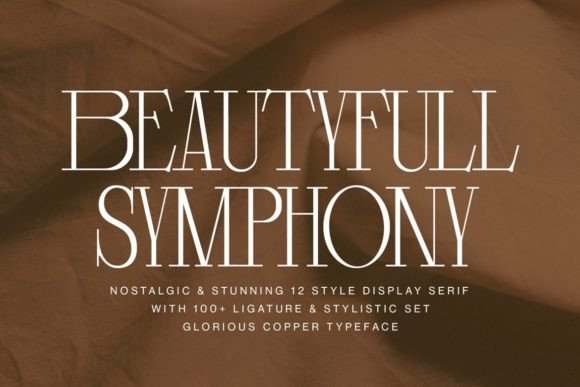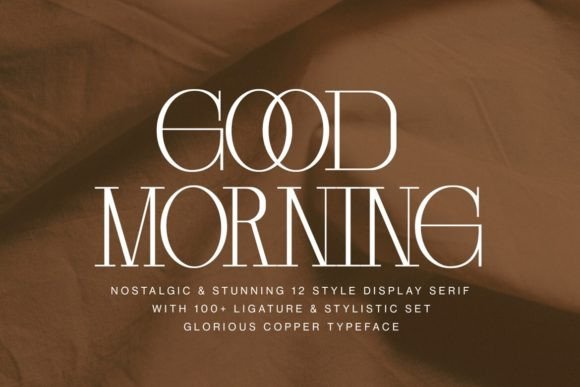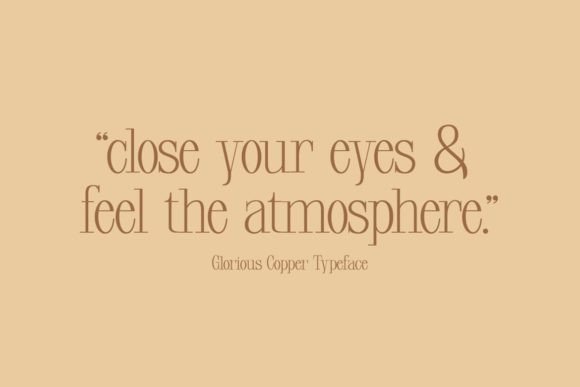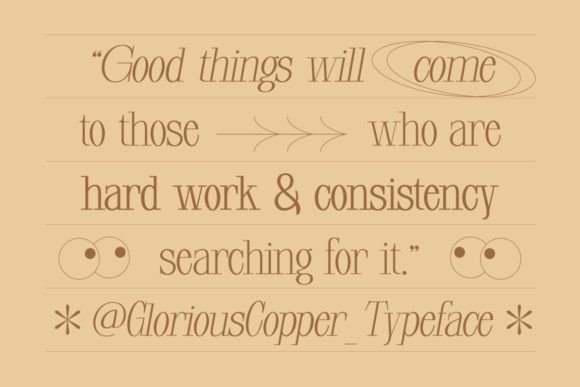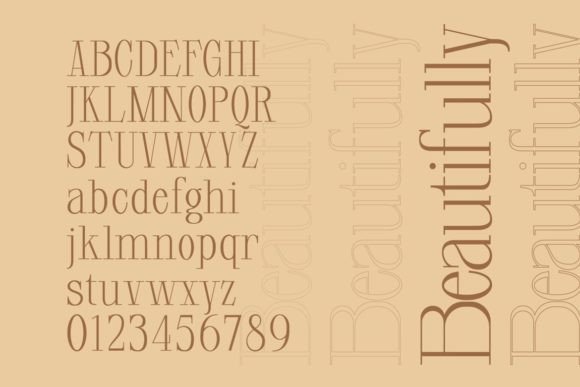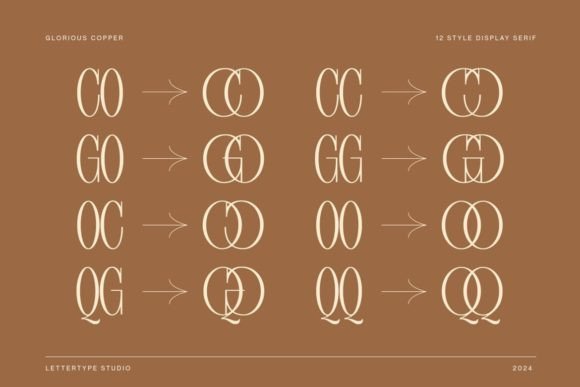
The Glorious Copper Font: A Timeless Choice for Creative Projects
Have you ever been in the middle of a design project, and suddenly, you’re stuck on finding the perfect font? I recall a particularly frustrating experience while working on a vintage-style poster for a client’s wedding invitation. The design was almost complete, but the font just wasn’t right. That’s when I stumbled upon the Glorious Copper font, and it completely transformed my design.
A Personal Review: What I Love About Glorious Copper
Glorious Copper is a stunning 12-style display serif font that exudes nostalgia and sophistication. Here are some things I love about it:
- ✨ Versatility: With 100+ ligatures and stylistic sets, this font is perfect for a wide range of creative projects, from vintage posters to fashion lookbooks.
- ✅ Elegant Ligatures: The font’s ligatures are beautifully crafted, adding a touch of elegance to any text.
- ✅ Stylistic Alternates: The font offers a range of stylistic alternates, making it easy to add visual interest to your text.
- ✅ Classic Look: Glorious Copper has a timeless, classic look that’s perfect for creating vintage vibes.
While Glorious Copper is an excellent font, there are a few minor quirks to be aware of:
- ⚠️ Glyph Overload: With so many glyphs and ligatures available, it can be overwhelming to navigate the font’s character set.
- 🤔 Pairing Challenges: While Glorious Copper is a beautiful font on its own, it can be challenging to pair it with other fonts.
A Practical Guide to Using Glorious Copper
The Backstory Behind Glorious Copper
Glorious Copper was designed by a team of typographers who wanted to create a font that would evoke the nostalgia of vintage printing. Inspired by classic serif fonts from the 19th century, Glorious Copper combines traditional typography with modern flair. The font’s designers aimed to create a versatile font that would be perfect for a wide range of creative projects, from vintage posters to fashion lookbooks.
Q: What is the best way to use Glorious Copper for vintage-style designs?
A: To create a vintage look with Glorious Copper, try pairing it with distressed textures, earthy colors, and classic illustrations.
Q: Is Glorious Copper suitable for body text?
A: While Glorious Copper is a beautiful font, it’s best suited for display text. For body text, consider using a clearer, more legible font.